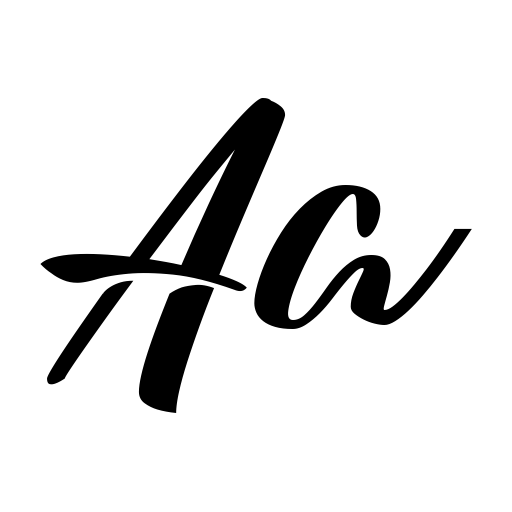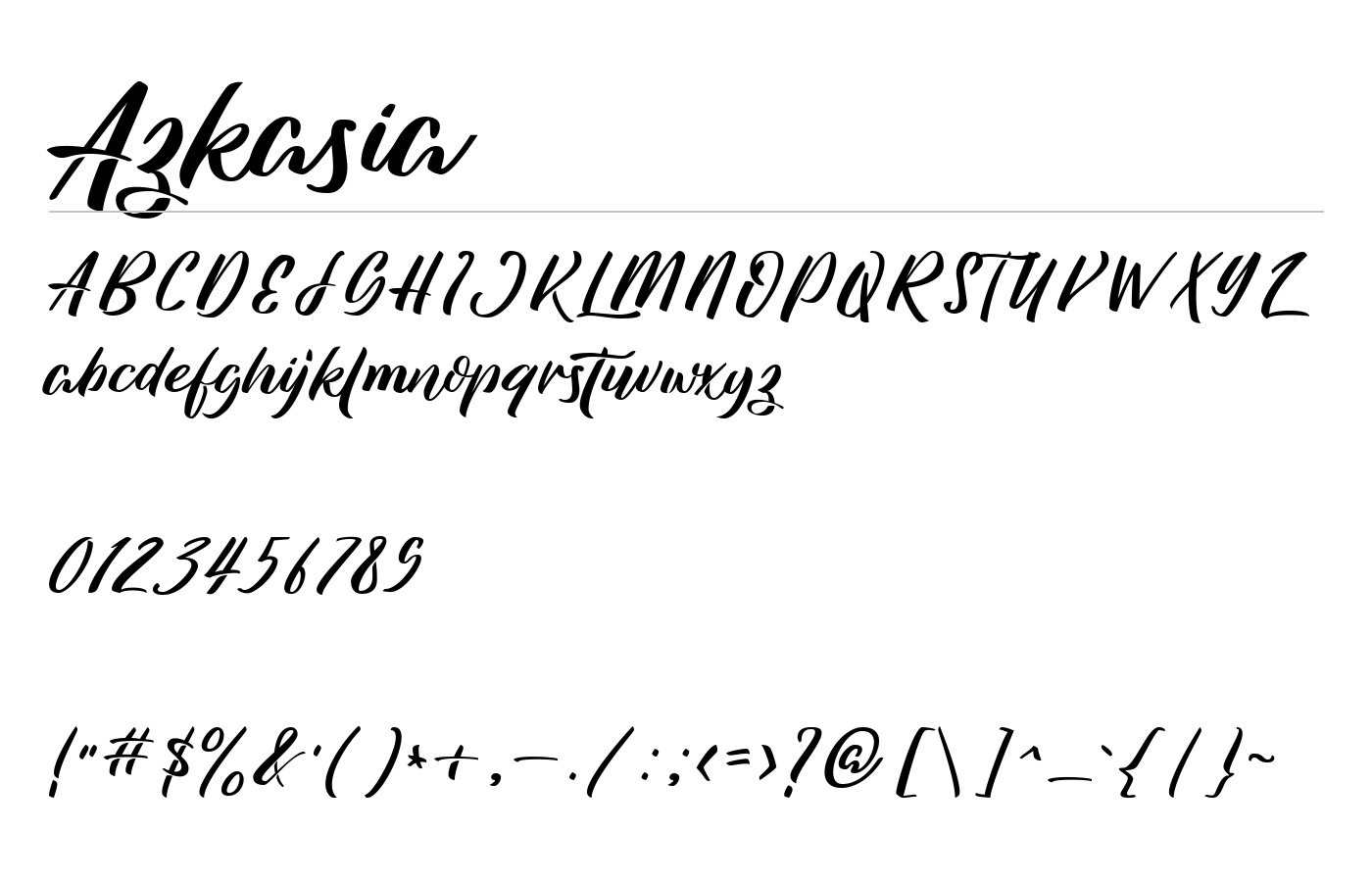
Azkasia is a stylish, script-style font with a lively, handwritten feel marked by smooth, flowing strokes and elegant curves. It features a medium weight and a slightly condensed width, making it perfect for adding a personal and creative touch to branding, invitations, or headlines. This font works beautifully to convey sophistication and warmth while maintaining readability.
Azkasia Font
About Azkasia Font
| Font family | Azkasia Font |
| Designer | junart |